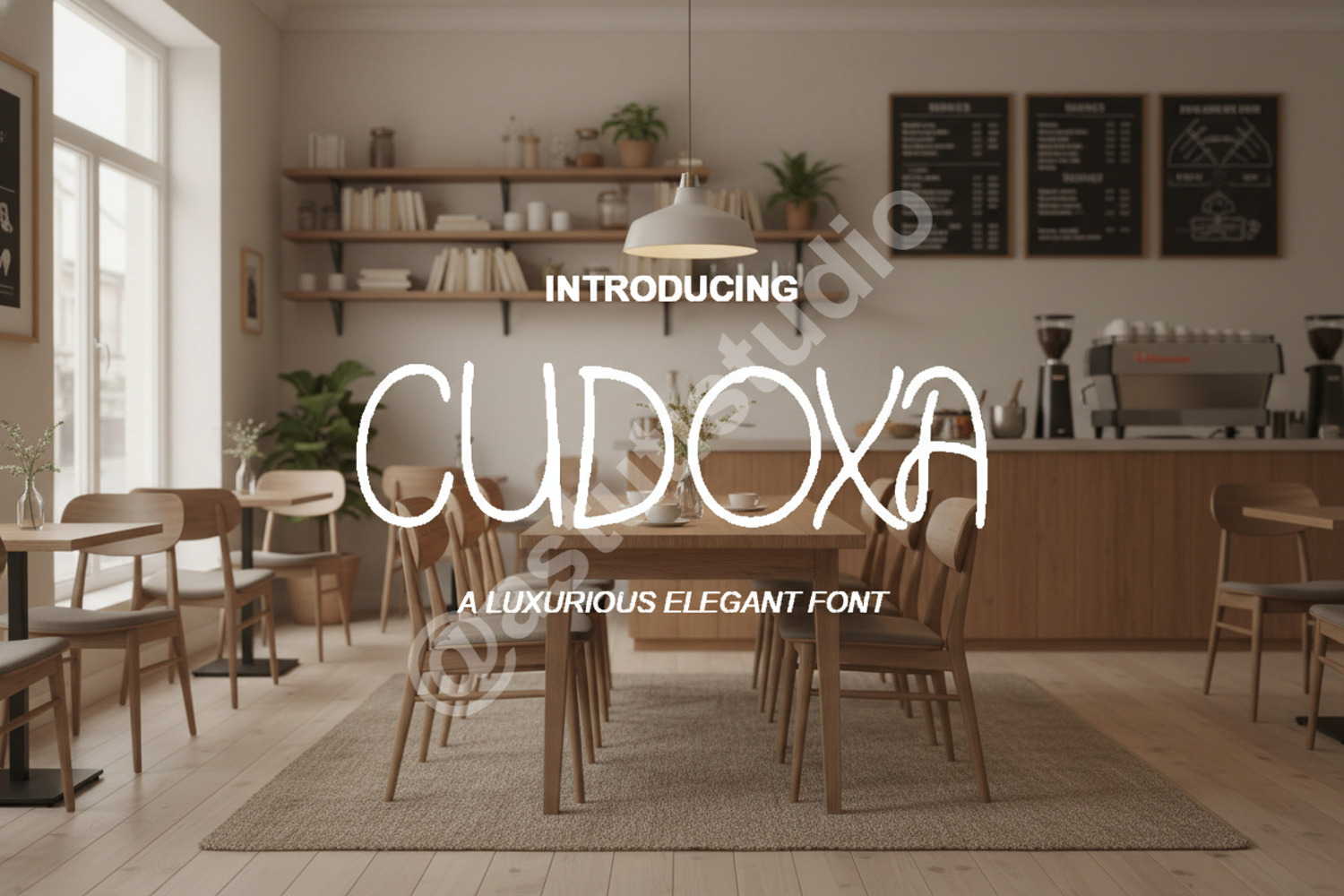
Cudoxa - Sophisticated Modern Serif Typeface
Cudoxa
Cudoxa is a premium serif typeface designed to bring an air of sophistication and timeless elegance to your creative projects. Crafted with meticulous attention to detail, this font features clean lines, balanced proportions, and unique character shapes that make it stand out in both digital and print media. Whether you are aiming for a minimalist look or a high-contrast editorial feel, Cudoxa provides the versatility needed for professional results.
- Full set of uppercase and lowercase letters
- Numbers, punctuation, and multilingual support
Cudoxa is highly versatile and perfectly suited for a wide range of professional applications, including:
- High-end branding and identity design
- Luxury product packaging and labels
- Editorial layouts and magazine spreads
- Elegant wedding invitations and event stationery
- Minimalist logo design and social media graphics